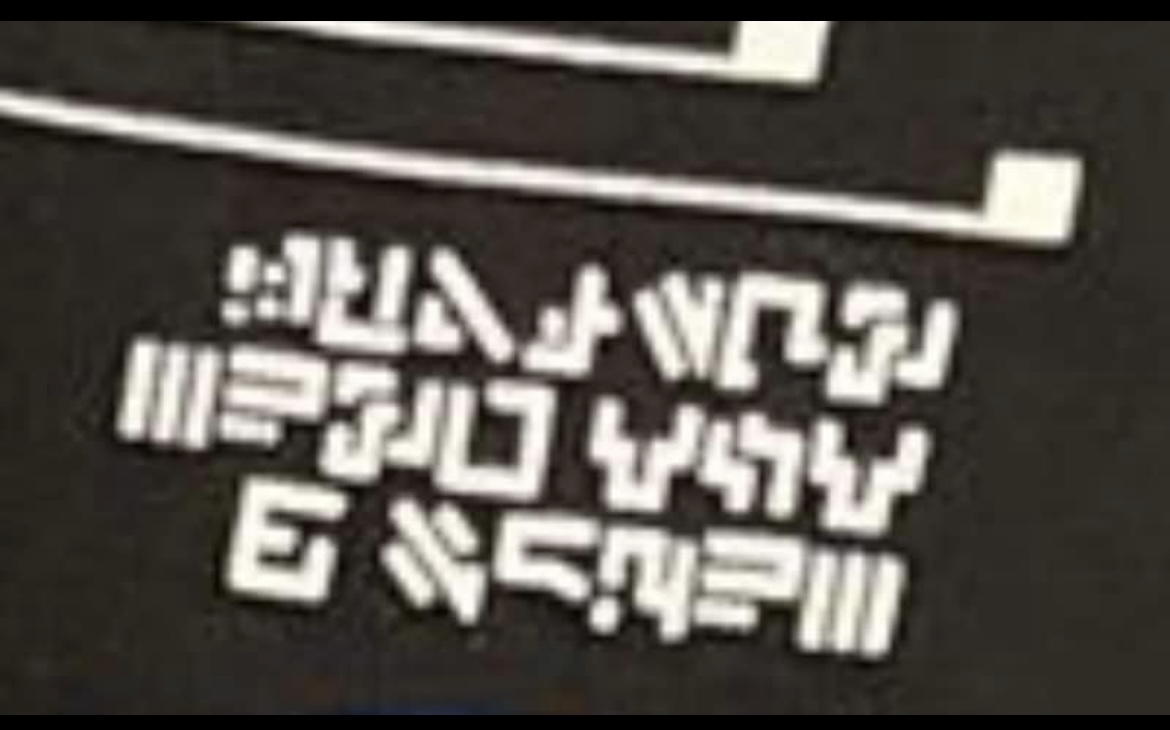
Props to the creator for making this accessible, but there are some errors in here. I know it’s probably not possible to leave letters out in these fonts, but for posterity’s sake, and since this font keeps getting used for bootleg merch:
There are no capital letters in g code so flipping the character upside down is incorrect. The J and X are incorrect. The X hasn’t actually been found in any of his work, but the J as well as the number 2 appeared in an official t shirt “virtual self b2b g jones” (photo attached). 2 is the only number that has been officially found afaik. Additionally the “O” should not end in a point, and some of the letters are sitting at the wrong height (several letters are basically top aligned like O and E while others like K are centered vertically)
some take up a wider space (seems like they all should sit in the same size block unlike d, e, and o here)
some use different weighted lines (all lines should have about the same thickness, c, h, r, and u are the most noticable)
The “M” could also look slightly better but these are the main offenders I’ve seen. Hope this is helpful to someone somewhere. I spent way to long becoming basically fluent in this made up language and now all I see are spelling errors on otherwise dope bootleg merch
I'll do my best to make the corrections so the Gjones vocabulary stays as accurate as possible to the original.
I also took the liberty of adding numbers, some letters and lowercase letters since I knew they officially didn't exist. In lower cases if you know the letter and see it spined then you know it is in lower case wich I thougt was fun and adds a bit of “complexity” to the The Ineffable Truth G jones vocabulary. (also this is helpful to know wich merchandise is bootleg) ;-)
If you happen to know anything else about the writing system or spot anything that could be improved, I'd be more than happy to keep refining it.